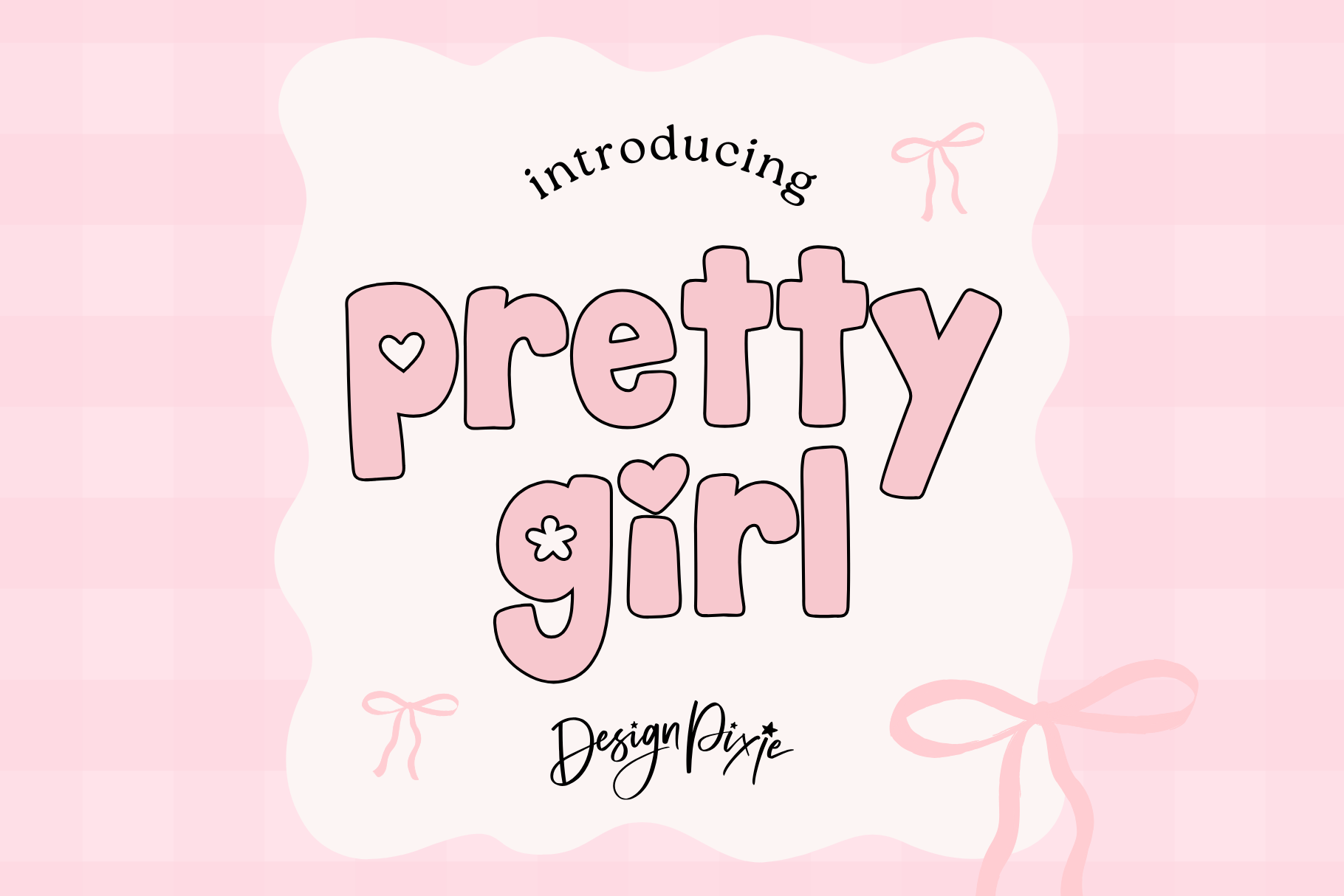
Pretty Girl Font
Pretty Girl font is the ultimate cute, bold font with playful heart, flower, and star details that bring a fun, girly vibe to any project!
Perfect for lettering quotes, adding an outline, or creating that sweet, stylish aesthetic. Whether you're designing for social media, logos, or DIY crafts, this font will make your text pop with charm and personality.
Add a touch of feminine cuteness to your designs with Pretty Girl and let your creativity shine!